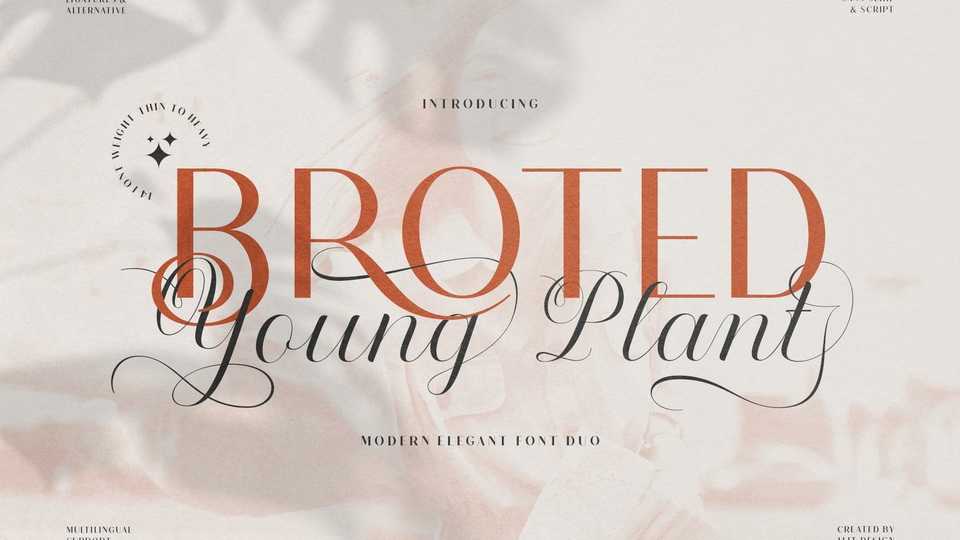
Broted Young Plant Font Duo › Fontesk – Download Grátis
Download Broted Young Plant, a unique and fantastic combination of sans serif and script fonts. Besides being unique, the Broted Young Plant fonts also has a luxury simple character that makes the design charming and luxurious.